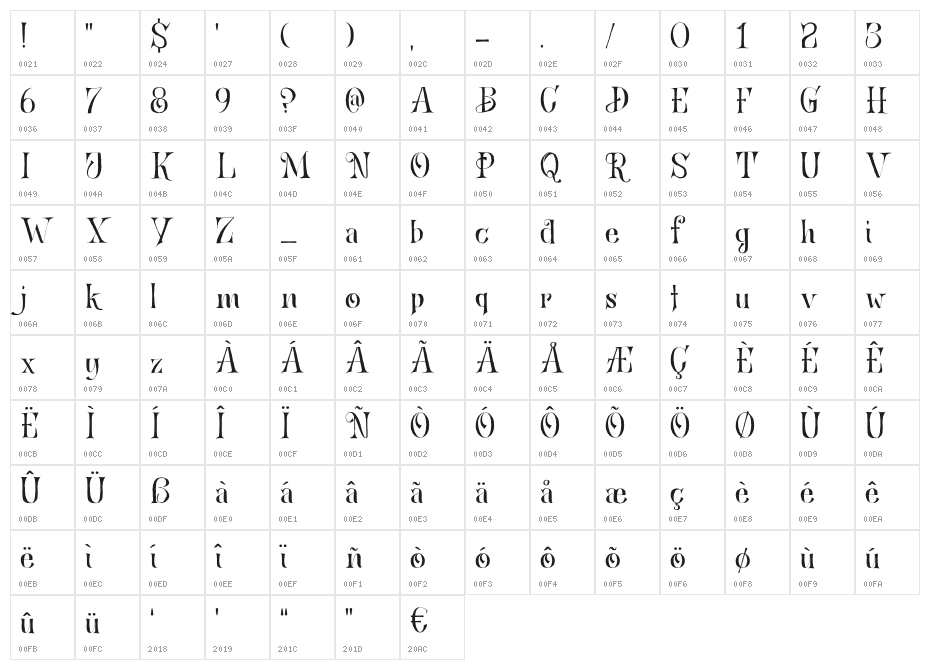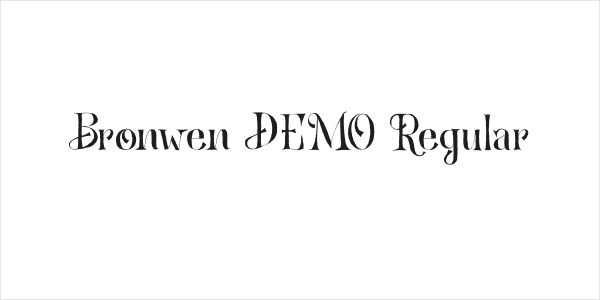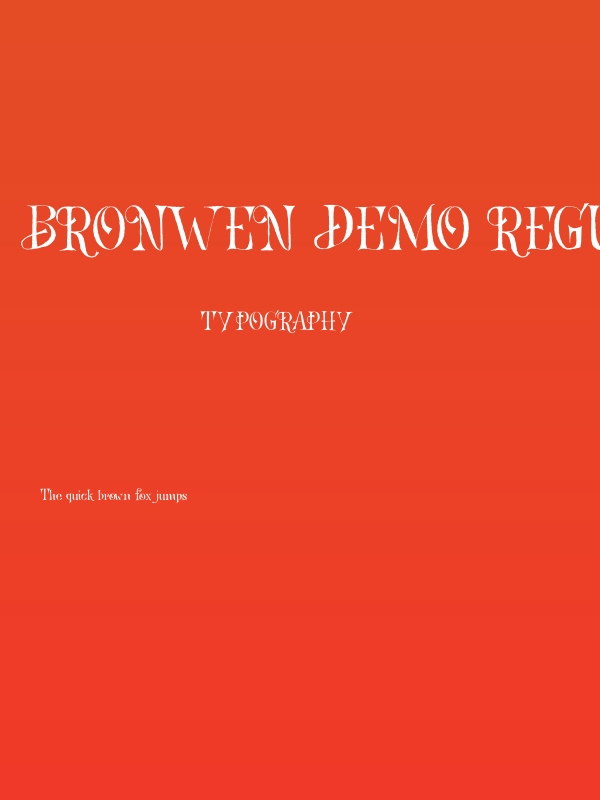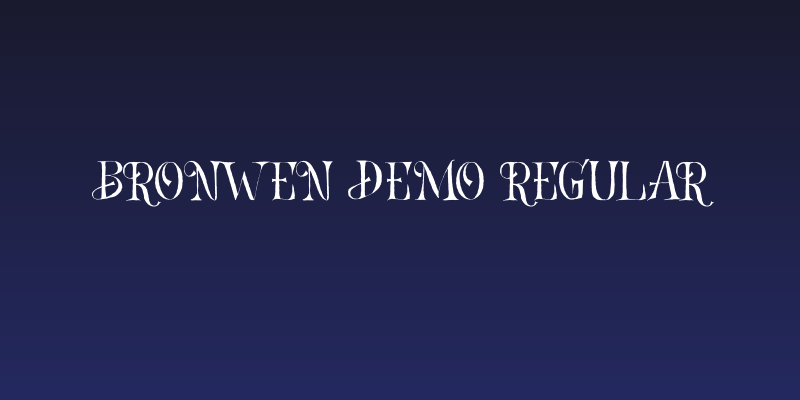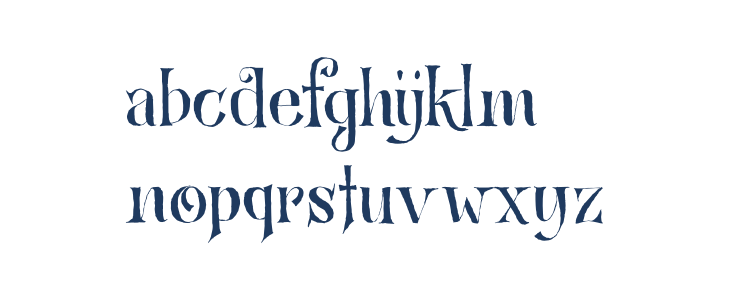
Bronwen DEMO Regular Font
Bronwen DEMO Regular Description
This font features a unique blend of decorative and classic elements, characterized by its intricate serifs and flowing lines. The uppercase letters exhibit a bold presence with sharp angles and elegant curves, while the lowercase letters maintain a consistent style with slightly more subtle flourishes. The numerals are distinct, with a playful yet sophisticated design, particularly evident in the curly shapes of certain numbers. Special characters are creatively styled, adding a whimsical touch to the overall aesthetic. This font's high contrast in stroke thickness enhances its dramatic appearance, making it suitable for eye-catching designs.